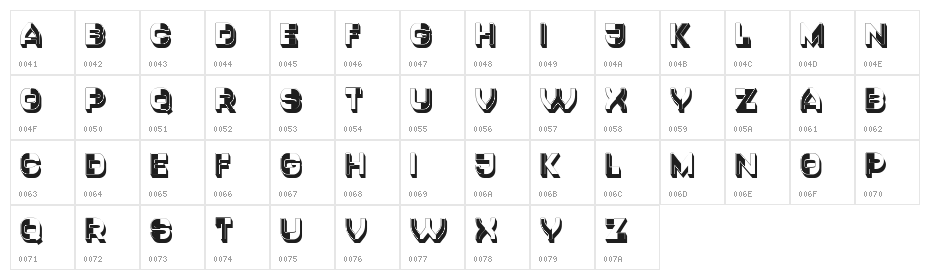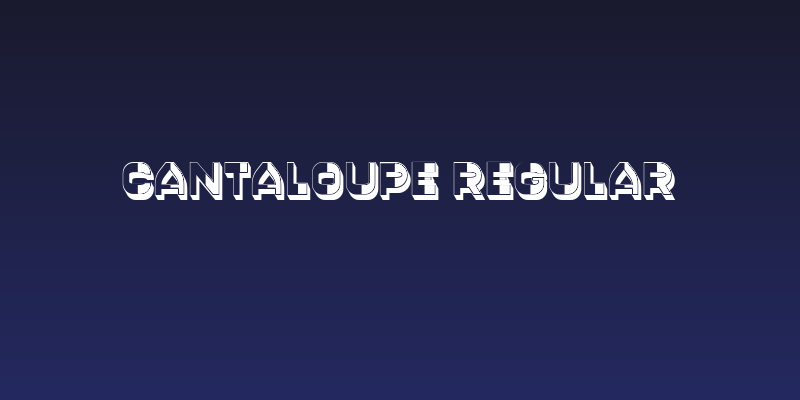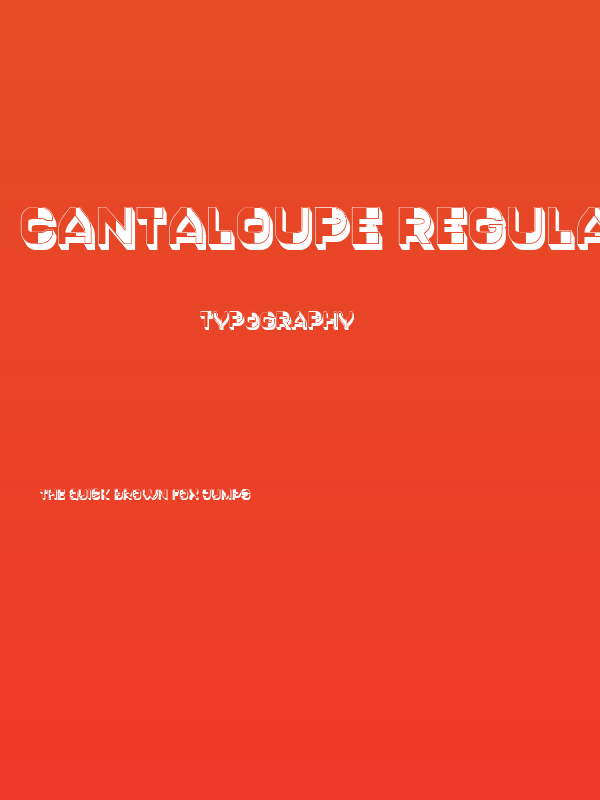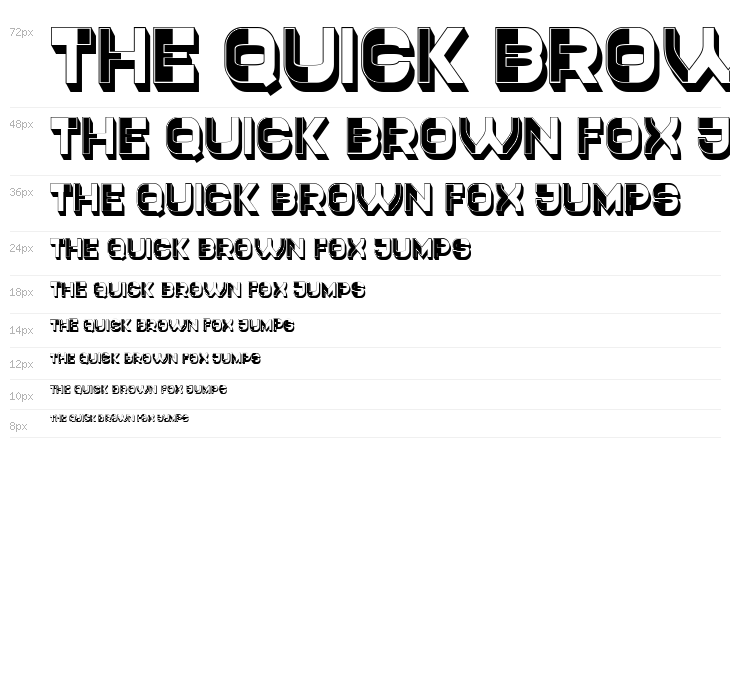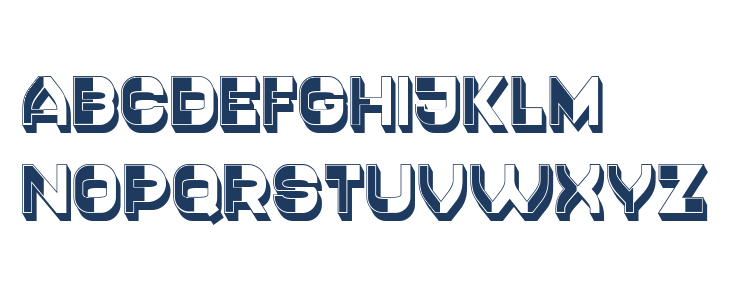
Cantaloupe Regular Font
Cantaloupe Regular Description
This font features a bold, three-dimensional style with a strong shadow effect that gives each character a sense of depth and solidity. The uppercase letters are designed with a geometric precision, creating a striking visual impact. The font's thick lines and sharp angles contribute to its modern and dynamic appearance, making it ideal for attention-grabbing headlines and titles. The shadow effect is consistent across all characters, enhancing the font's cohesive and polished look. Its unique style is both playful and bold, making it suitable for creative projects that require a standout typeface.